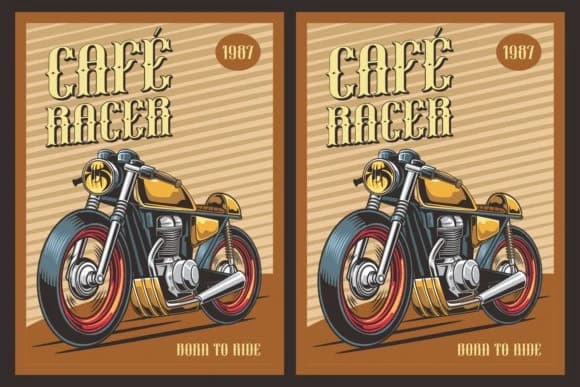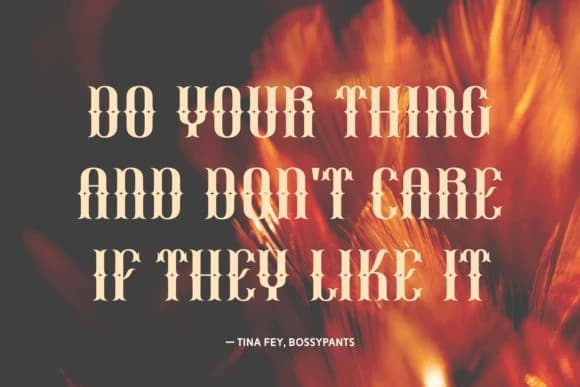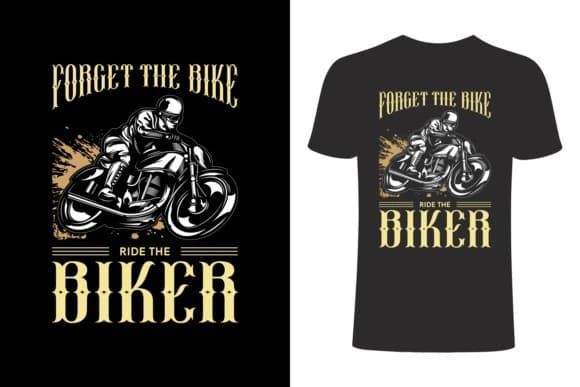
Spirite Ablaze Font
Spirite Ablaze Font is a bold and thick lettered blackletter font. Add it confidently to your projects, and you will love the results. This font is PUA encoded which means you can access all of the glyphs and swashes with ease!